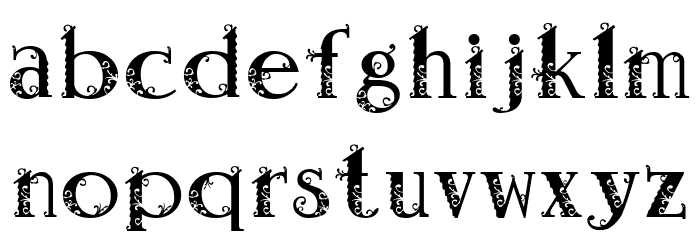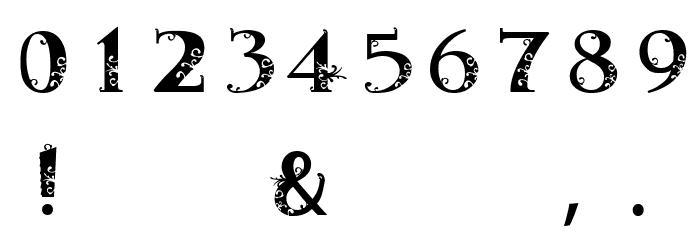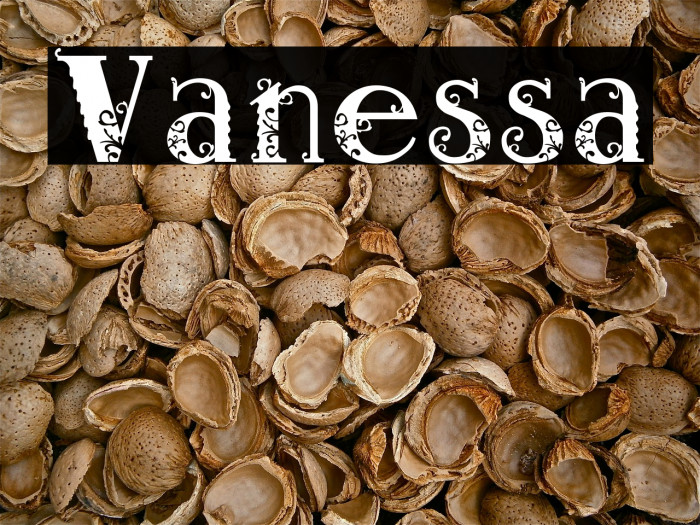
Vanessa Font
This font features an elegant and decorative style, characterized by intricate floral embellishments integrated into each letter. The uppercase and lowercase letters maintain a consistent design theme, with swirling patterns that add a touch of sophistication and artistic flair. The numerals and special characters are similarly adorned, ensuring a cohesive look across all glyphs. This font's unique aesthetic makes it suitable for projects that require a touch of elegance and creativity, such as invitations, greeting cards, and branding materials.
A decorative font with intricate floral embellishments.
- Proposed Projects: Ideal for wedding invitations, greeting cards, branding, and decorative posters.